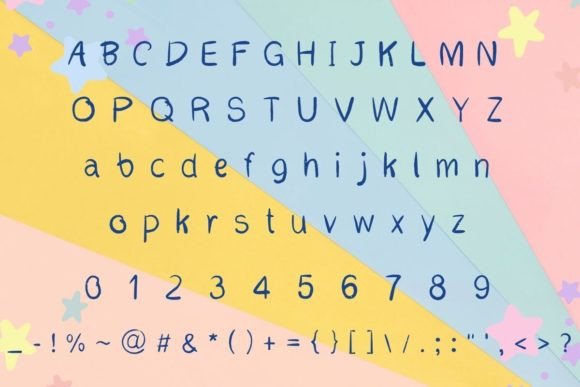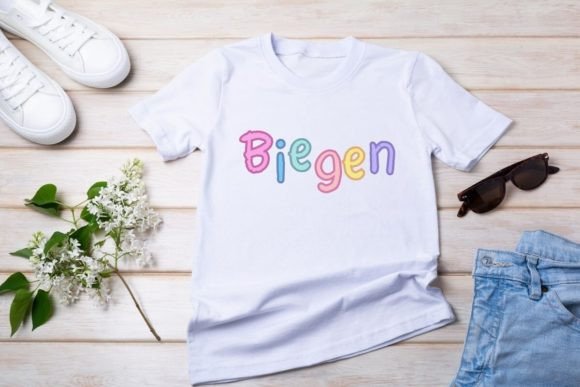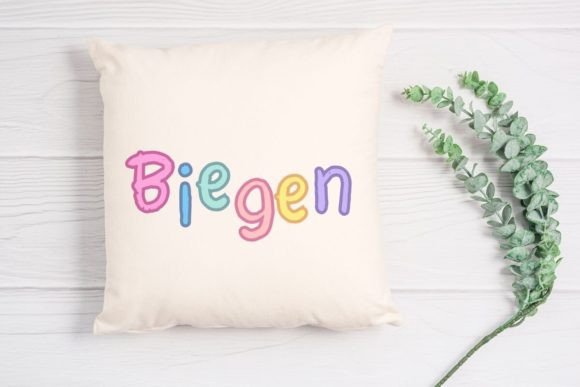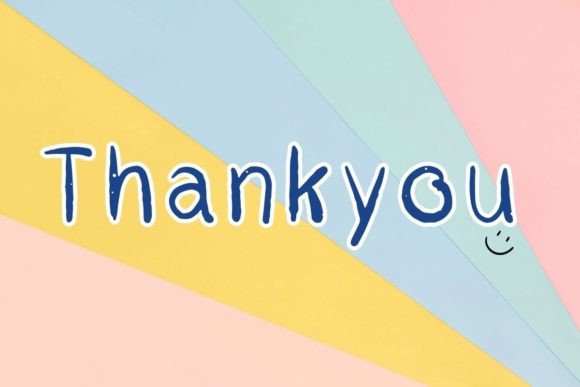
The Power of Handwritten Charm: Introducing Biegen Font
Have you ever found yourself scribbling down ideas in a notebook, only to discover that your handwritten notes have become the most inspiring part of your design process? For many creatives, the unique charm of handwritten text can spark a sense of imagination and set the tone for a project’s overall aesthetic. This is exactly where Biegen Font comes in – a minimal and friendly handwritten display font designed to bring a natural, one-of-a-kind touch to your designs.
Biegen Font is more than just a font; it’s a versatile tool that can elevate your designs from simple to stunning. Its unique style makes it incredibly fitting to a wide range of projects, from digital art to print materials. Whether you’re a seasoned designer or just starting out, Biegen Font is sure to be a valuable addition to your creative toolkit.
Biegen Font Key Features
- Font Family: Biegen is a sans-serif font family.
- Font Sizes: Biegen is available in multiple font sizes, including 8, 9, 10, 11, 12, 14, 18, and 24 point sizes.
- Resolution: Designed for high-resolution displays, Biegen is optimized for use at 72 dpi, 144 dpi, and 288 dpi.
- Unique Characteristics: Biegen features a clean, modern design with a distinctive x-height and a subtle italic slant.
- Language Support: Biegen supports a wide range of languages, including Latin, Cyrillic, Greek, and many others.
Biegen Font Review
Overall, I’m quite impressed with the Biegen Font. It has a unique, modern look that sets it apart from other sans-serif fonts. ✨ I love the clean lines and the subtle curve of the ‘g’ and ‘s’ characters, which gives the font a bit of character. It’s perfect for titles and headings, where you want to make a statement.
Another great aspect of Biegen is its versatility. It works well in both digital and print media, and it’s suitable for a wide range of design projects, from logos to websites to brochures. ✨ The font is also highly legible, even at small font sizes, making it a great choice for body text.
While Biegen is a great font, there are a few limitations to be aware of. ⚠️ One of the main issues is that it can be a bit difficult to read in certain situations, such as when the text is reversed (e.g., white on black). This is because the font’s unique curves and lines can make it harder to distinguish individual characters.
Despite its limitations, I would highly recommend the Biegen Font for designers looking for a modern, versatile sans-serif font. It’s a great choice for a wide range of projects, and its unique look will help your designs stand out from the crowd.
- Unique, modern design
- Highly legible, even at small font sizes
- Works well in both digital and print media
- Suitable for a wide range of design projects
- May be difficult to read in certain situations (e.g., reversed text)